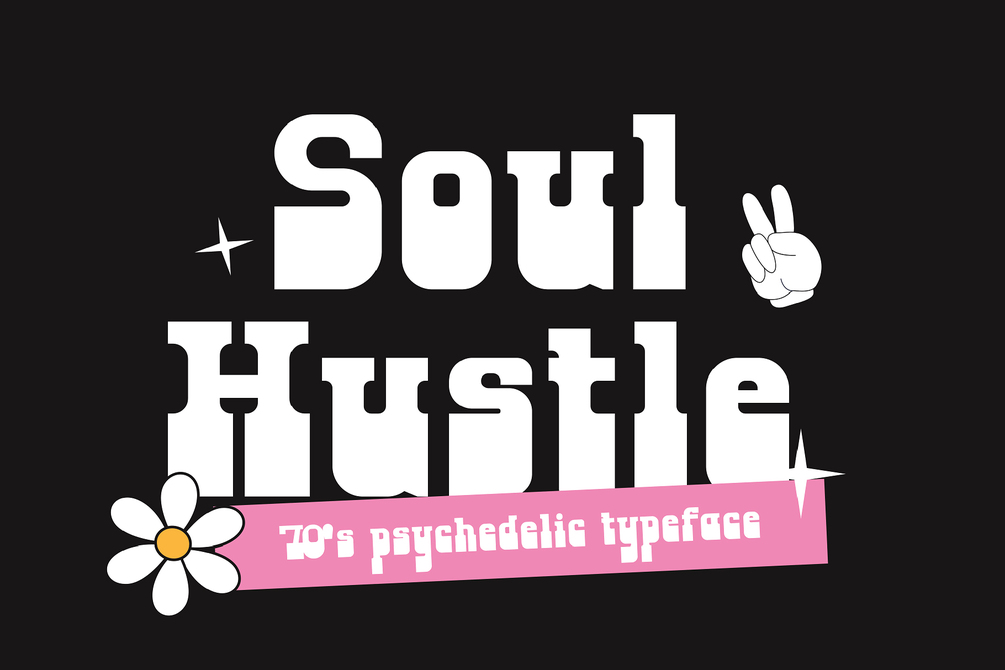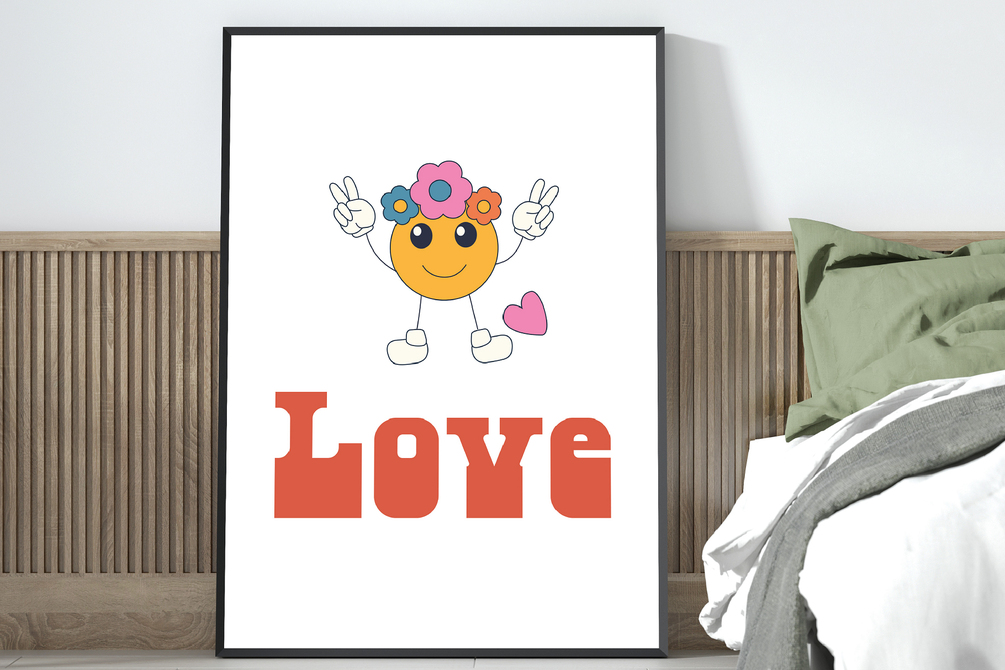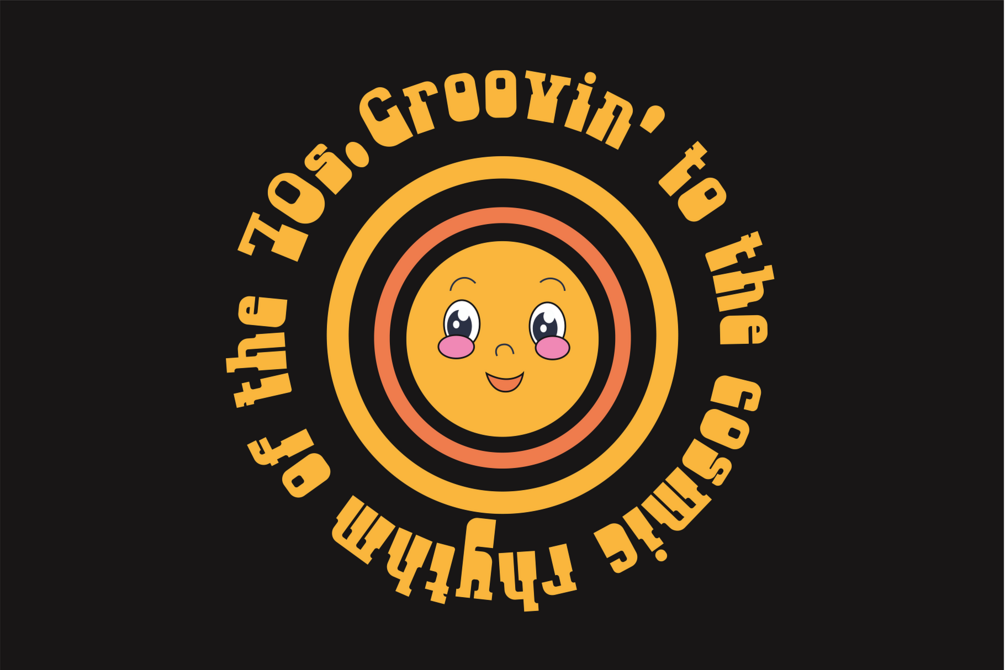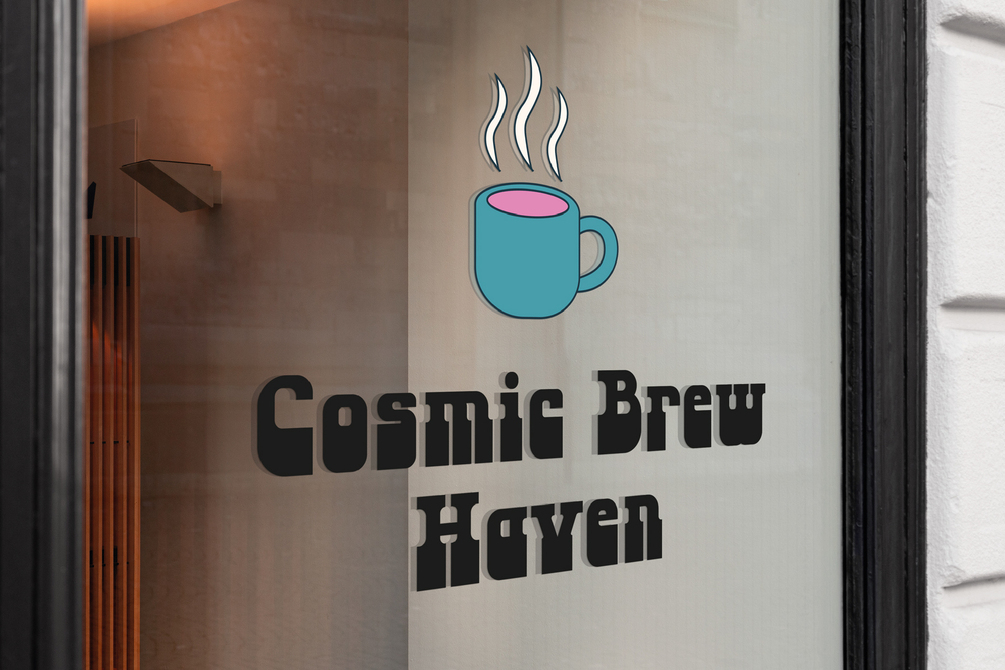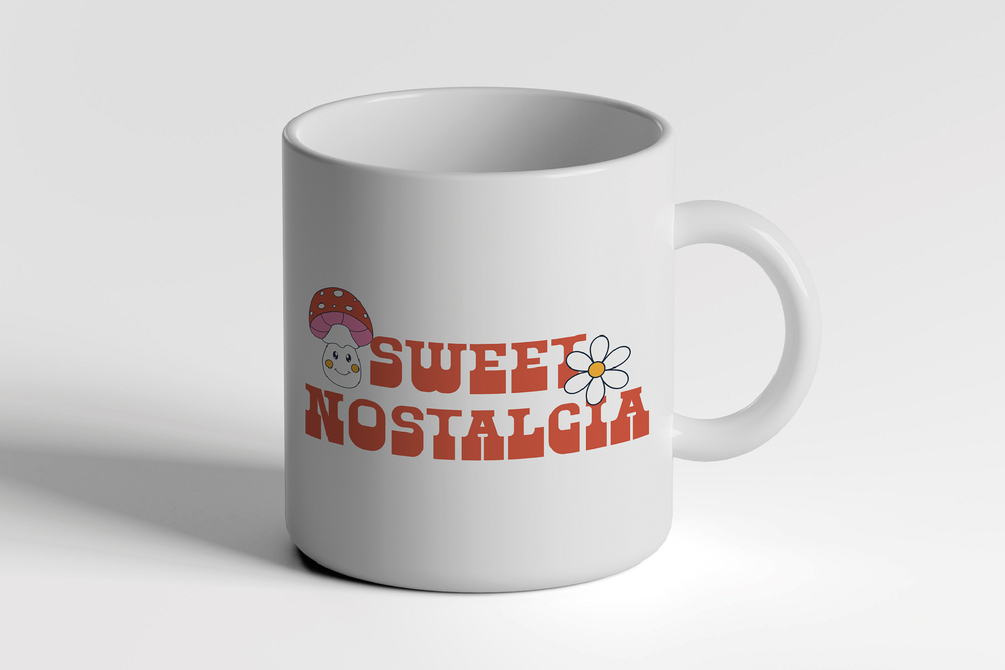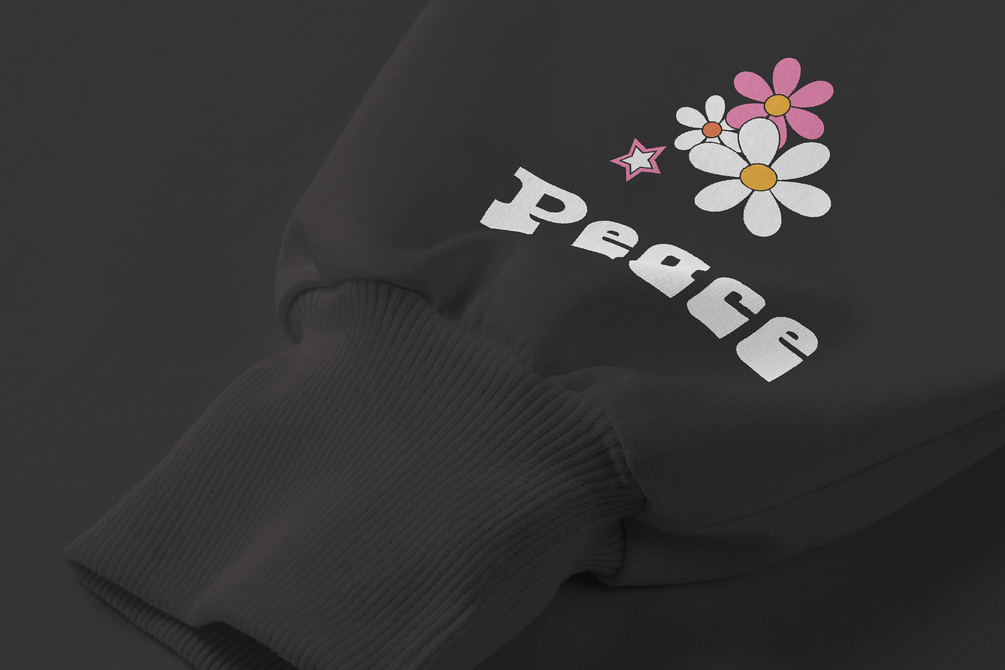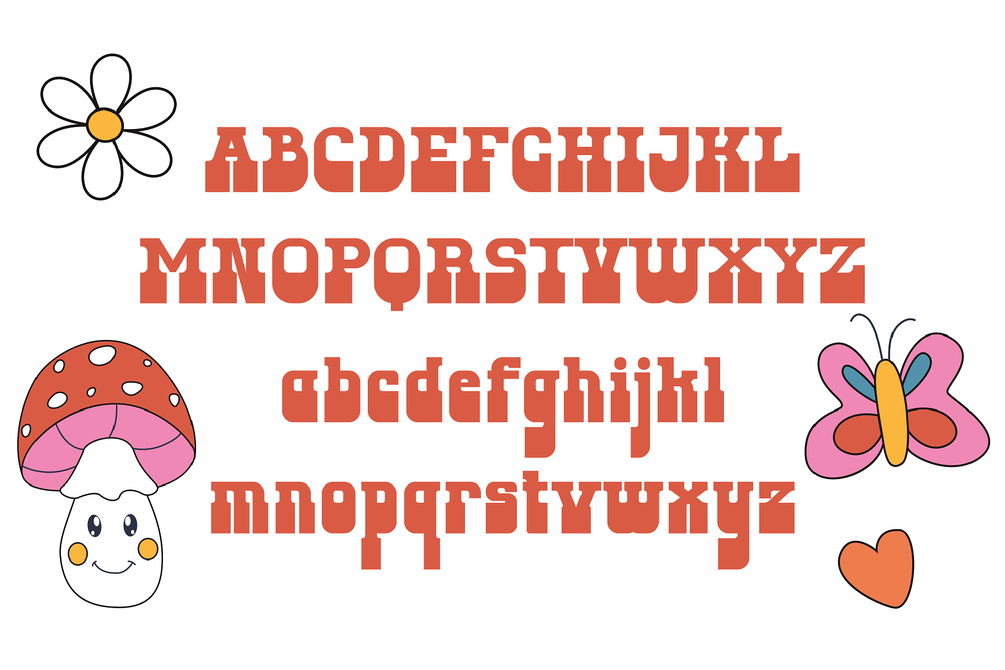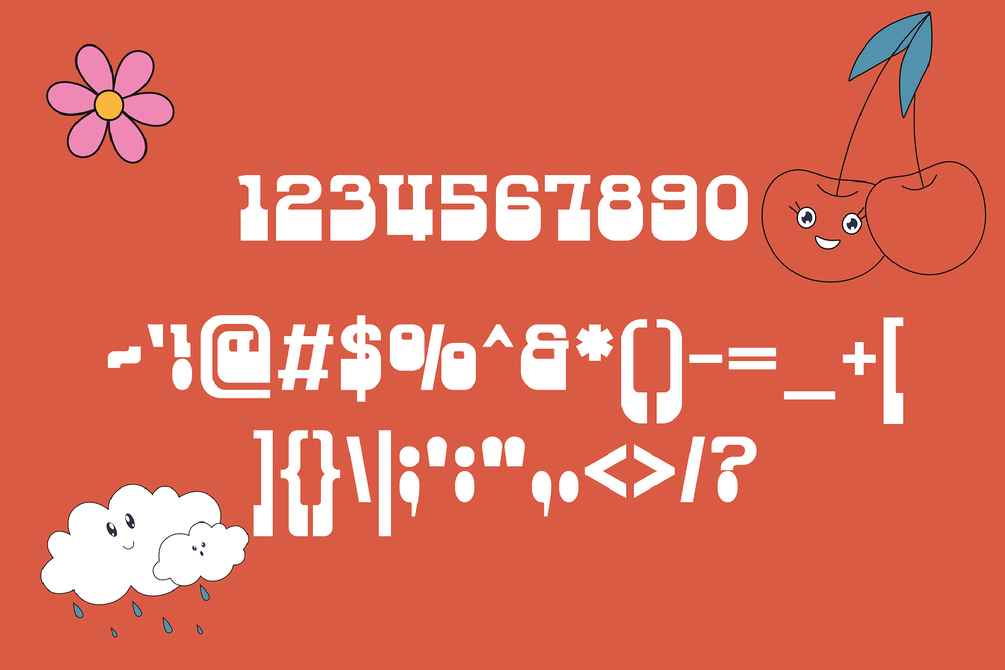
Soul Hustle - 1970s Psychedelic Font
Soul Hustle is a vibrant and dynamic typeface that captures the heart and soul of the 1970s psychedelic and groovy era. With its bold curves, exaggerated forms, and swirling contours, this font transports you back to a time when music, fashion, and art were bursting with innovation and free-spirited creativity. Designed to embody the essence of the hustle and the unbridled joy of soul music, Soul Hustle is perfect for projects that require a touch of retro flair and a dash of daring.
This typeface is meticulously crafted to reflect the iconic visual style of the '70s, featuring letters that seem to dance and move with the energy of disco and funk. The unique character shapes and the playful interplay of letter spacing capture the lively essence of a decade known for its bold expressions and revolutionary artistic achievements. Soul Hustle includes a range of characters, including uppercase, lowercase, numbers, and special glyphs, offering versatility for various design needs.
Soul Hustle is not just a font; it's a tribute to the groovy vibes and psychedelic patterns that defined an era. It's ideal for posters, album covers, fashion labels, branding projects, and anything that aims to channel the spirit of the '70s. Whether you're creating a vintage-inspired campaign or adding a touch of nostalgia to contemporary designs, Soul Hustle brings an authentic and engaging edge to your creative work.
Dive into the colorful world of Soul Hustle and let your designs groove with the rhythm of the '70s. This typeface is your go-to choice for making a statement that is both nostalgic and boldly forward-thinking, perfect for capturing the attention of those who appreciate the timeless appeal of this unforgettable era.